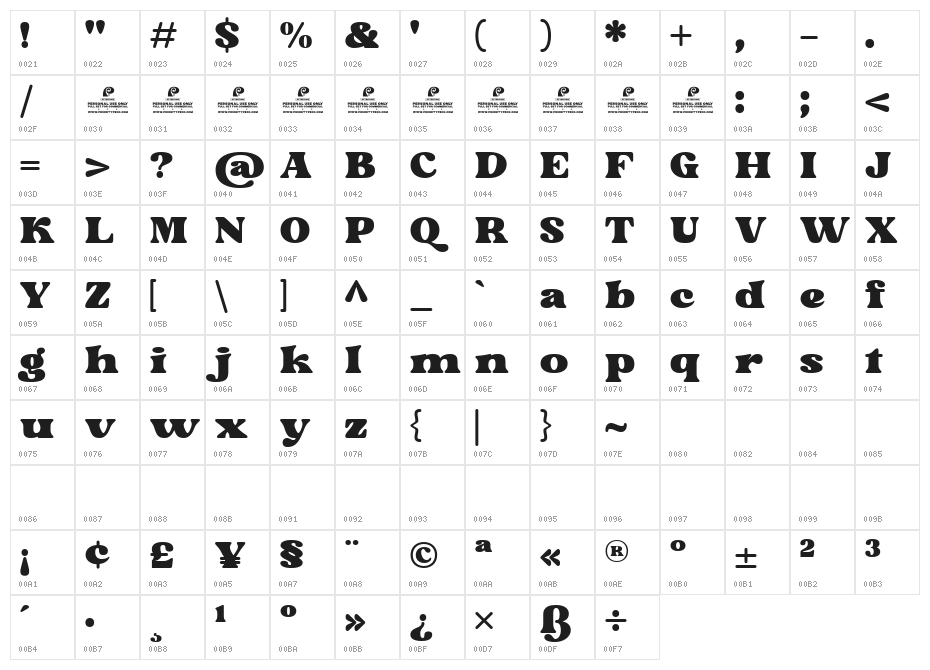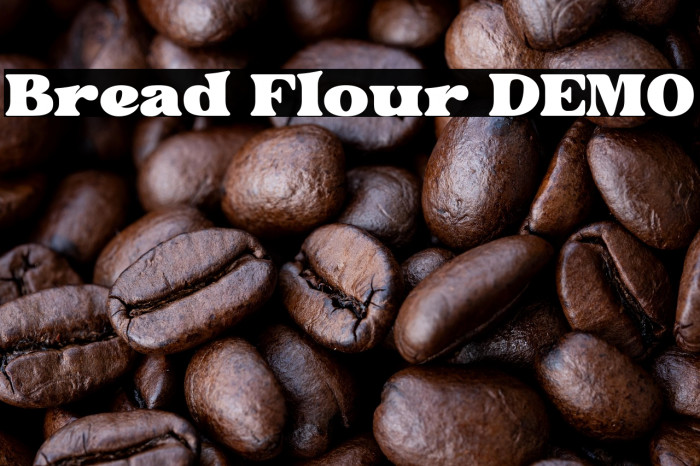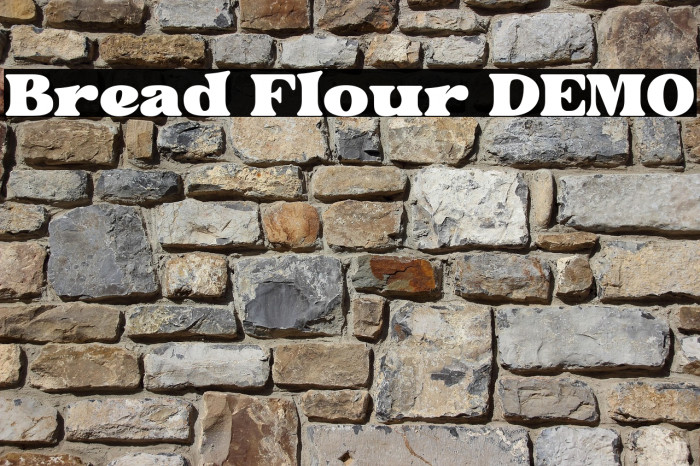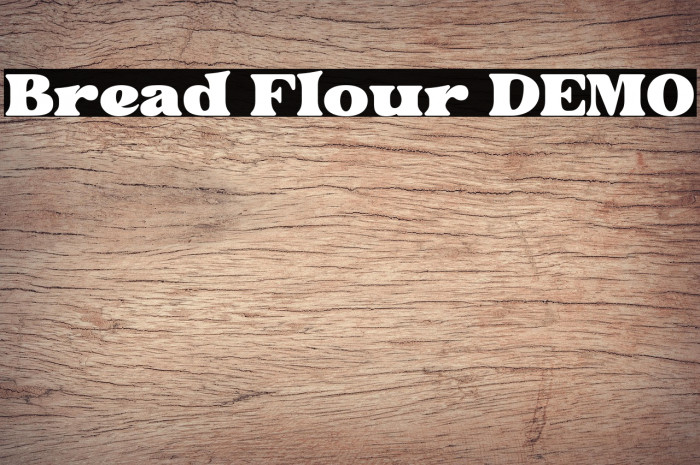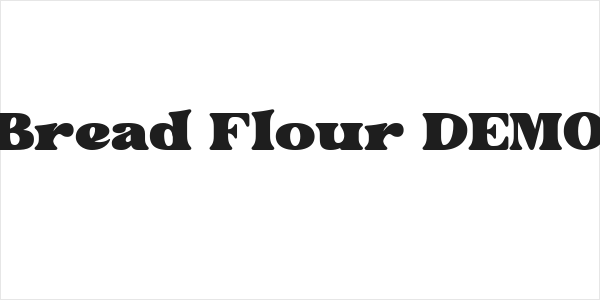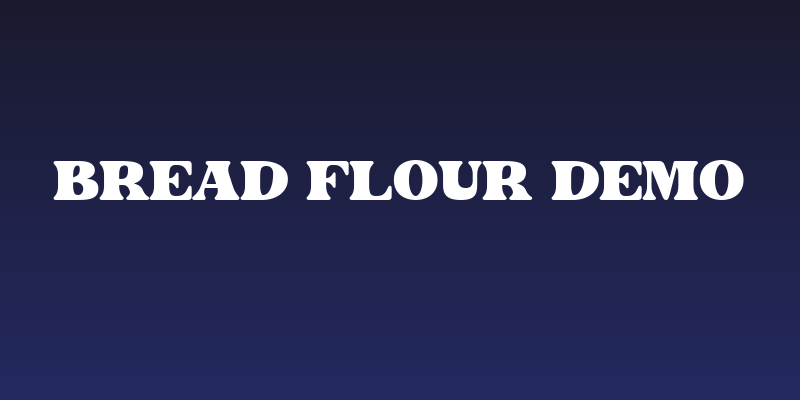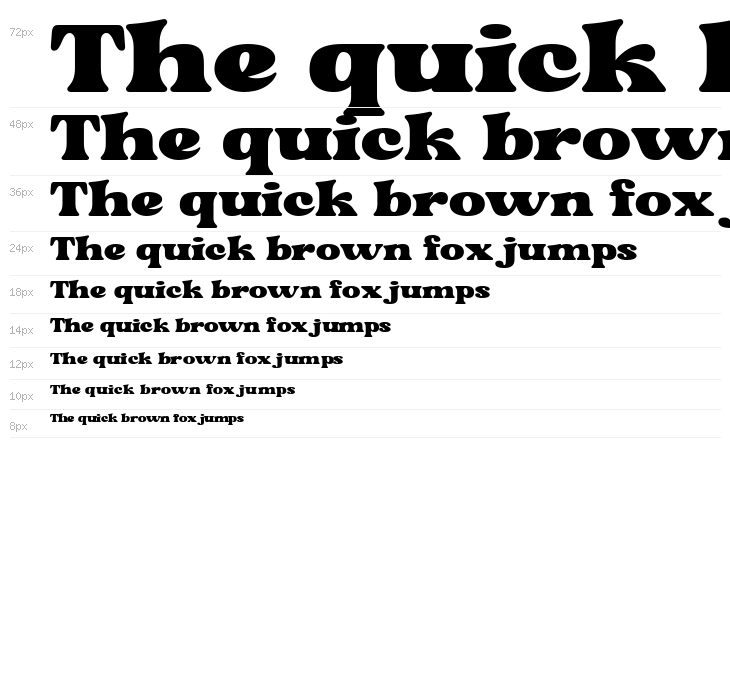
Bread Flour DEMO Font
Bread Flour DEMO Description
A bold, decorative font with thick strokes and a playful, retro style. The characters have a unique, whimsical shape with high contrast between thick and thin strokes.
| Overall Style | Retro, Playful |
| Proposed Projects | Posters, headlines, branding, and logos. |